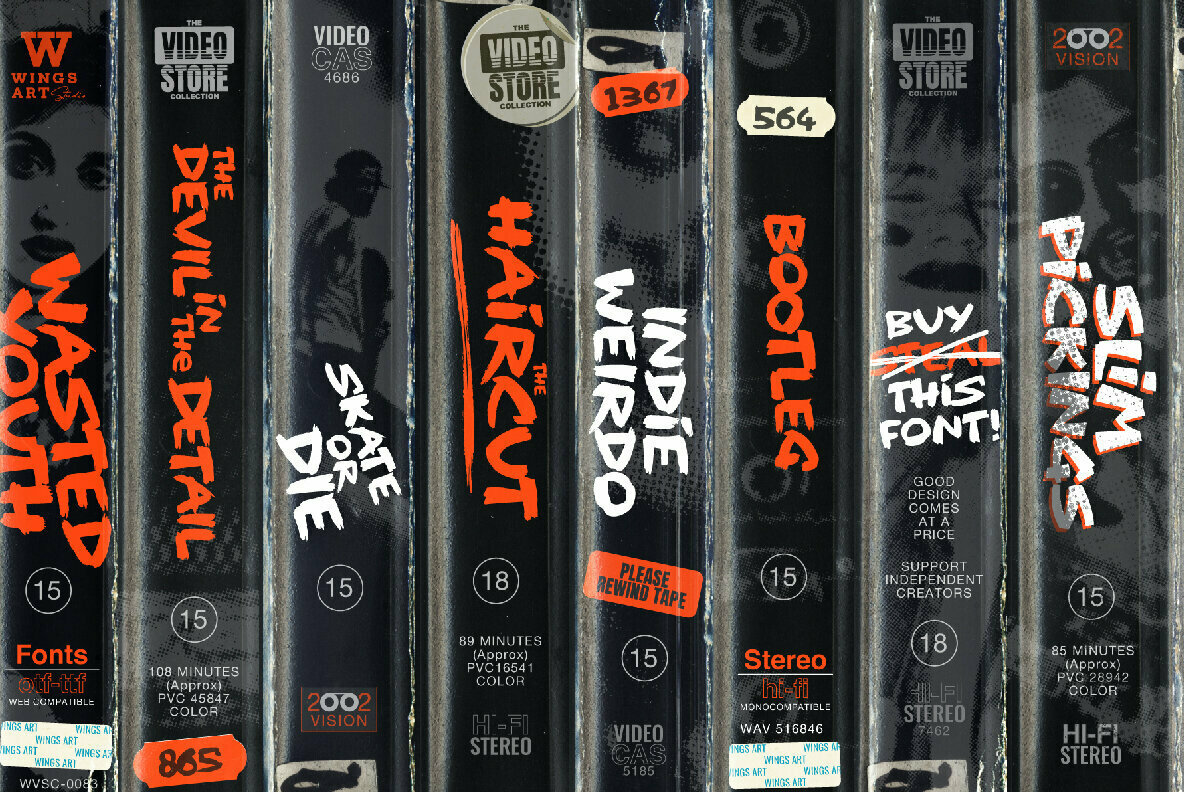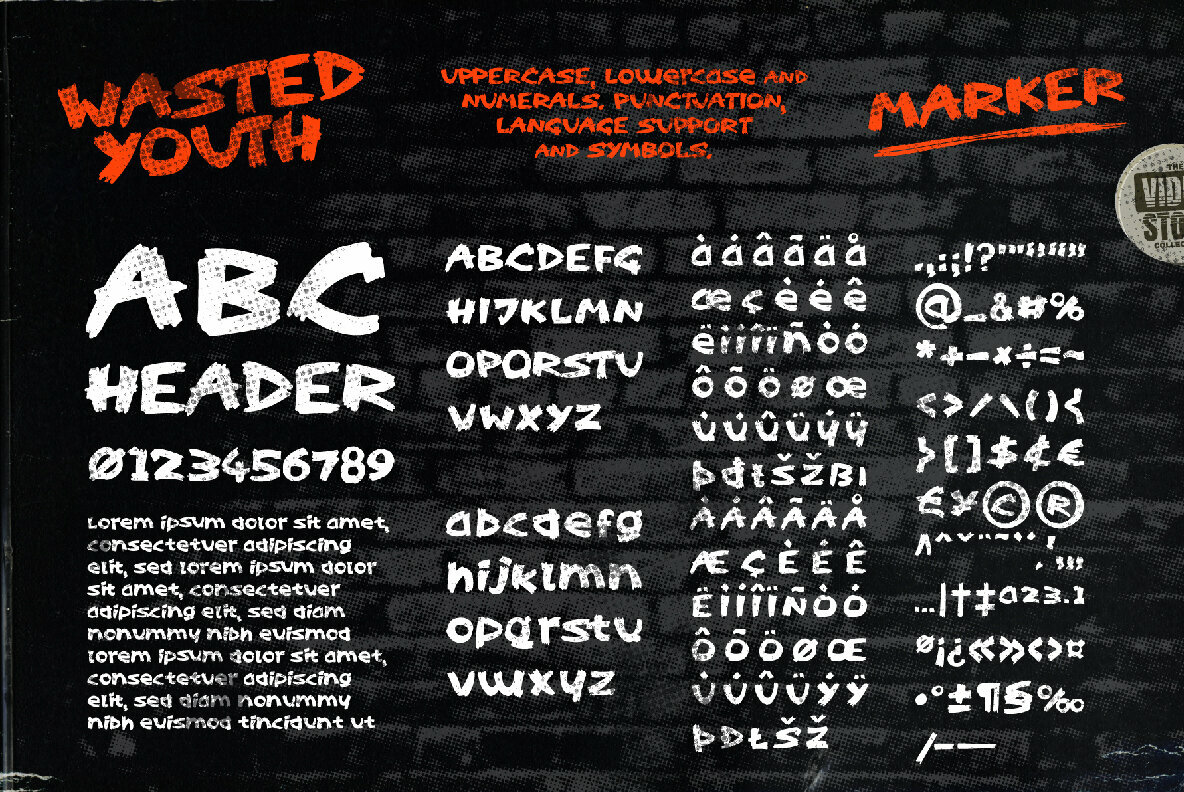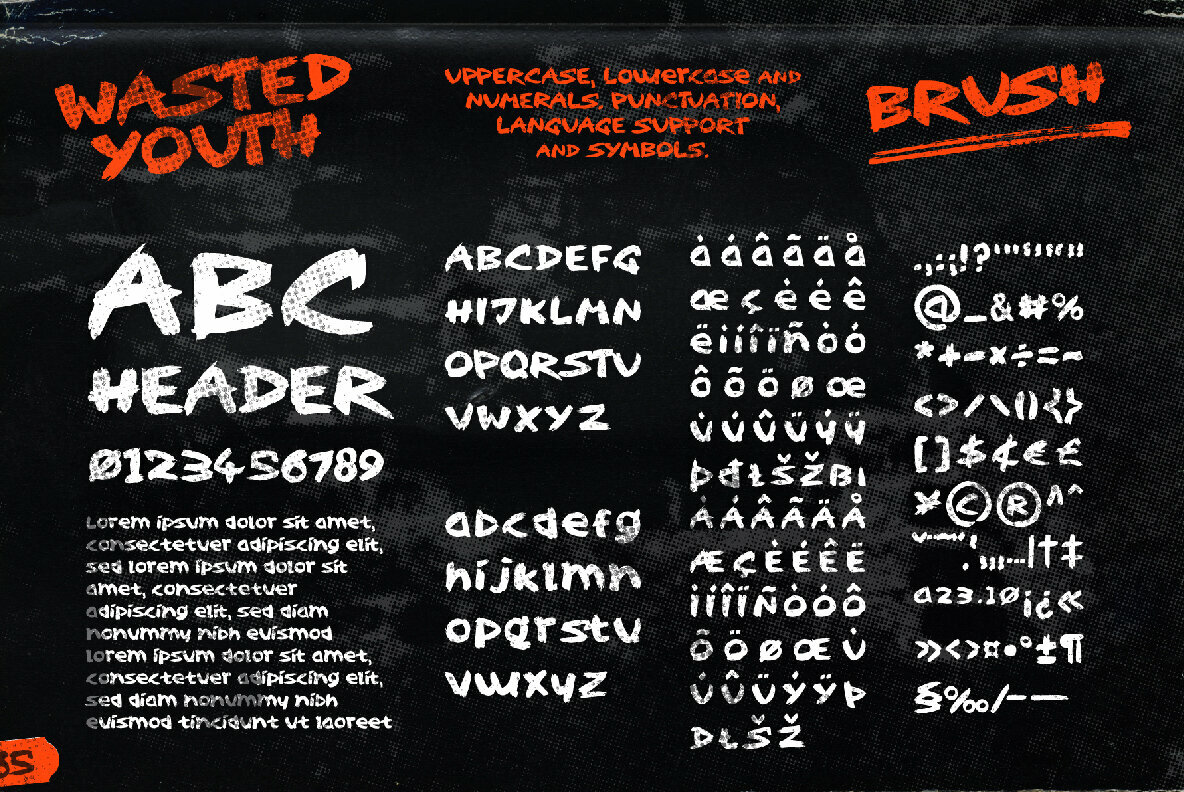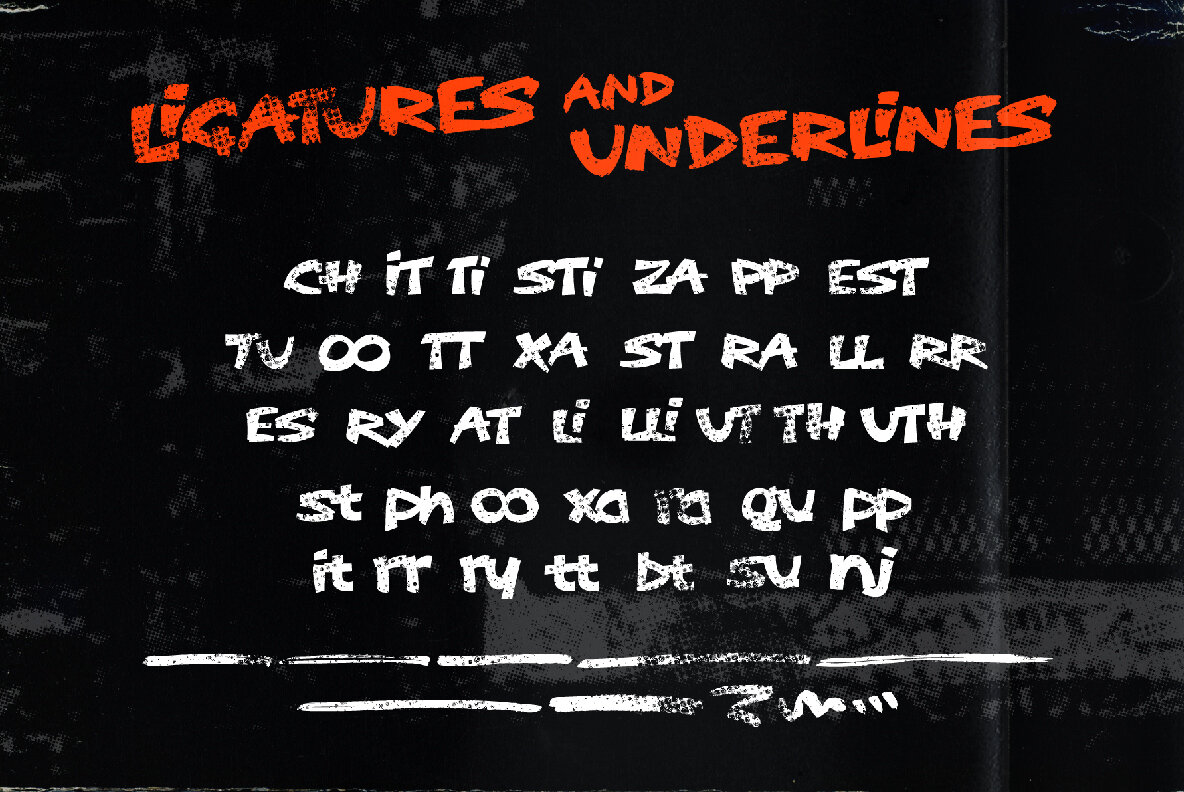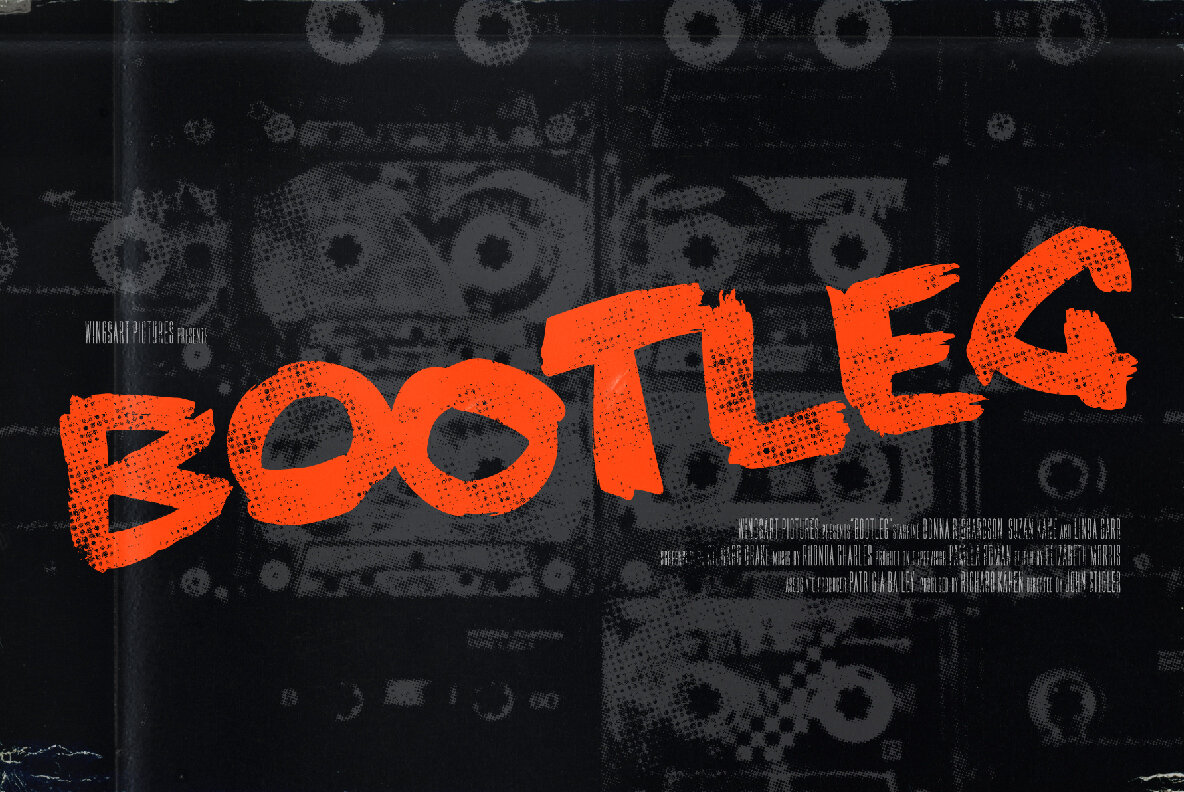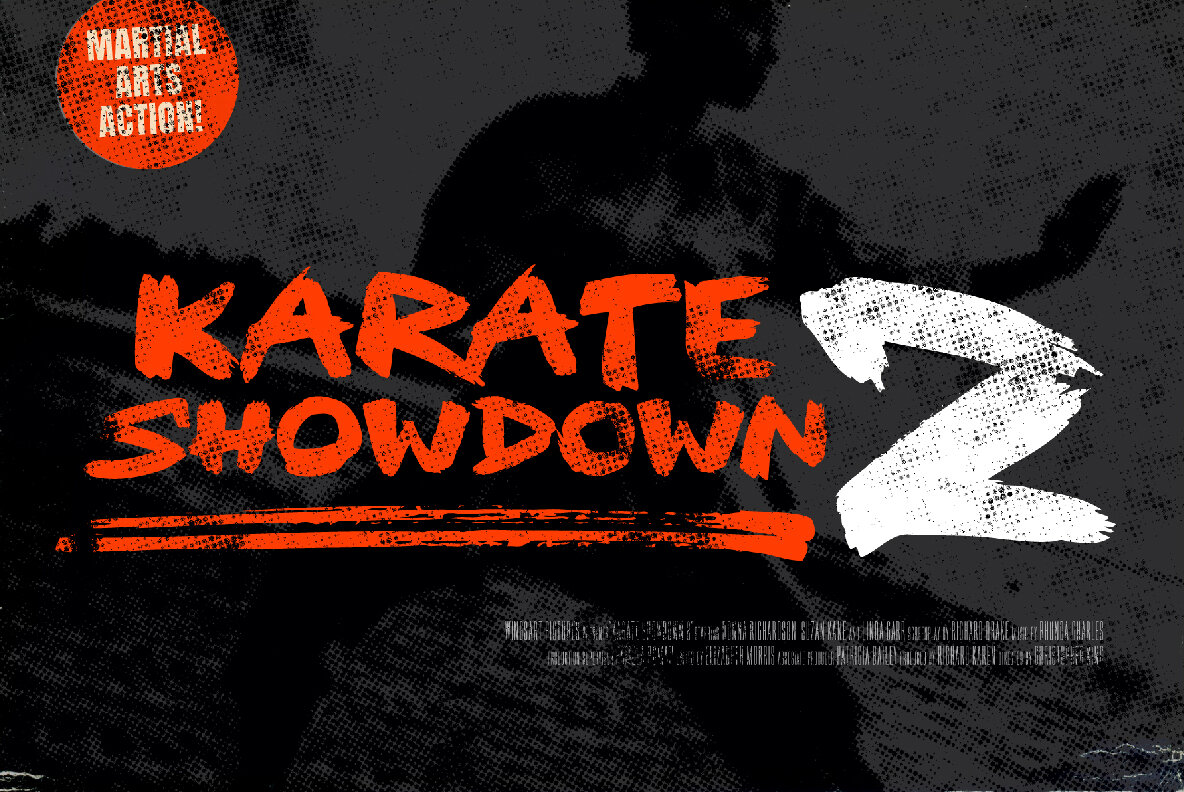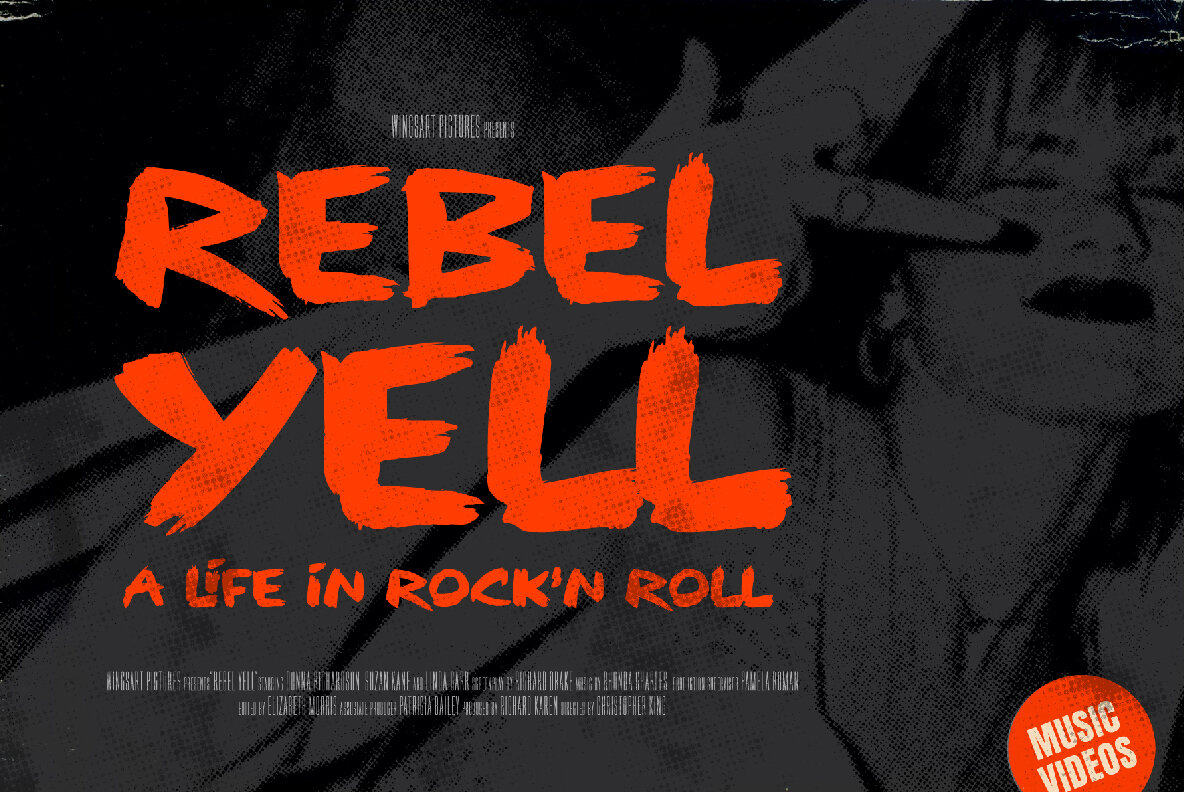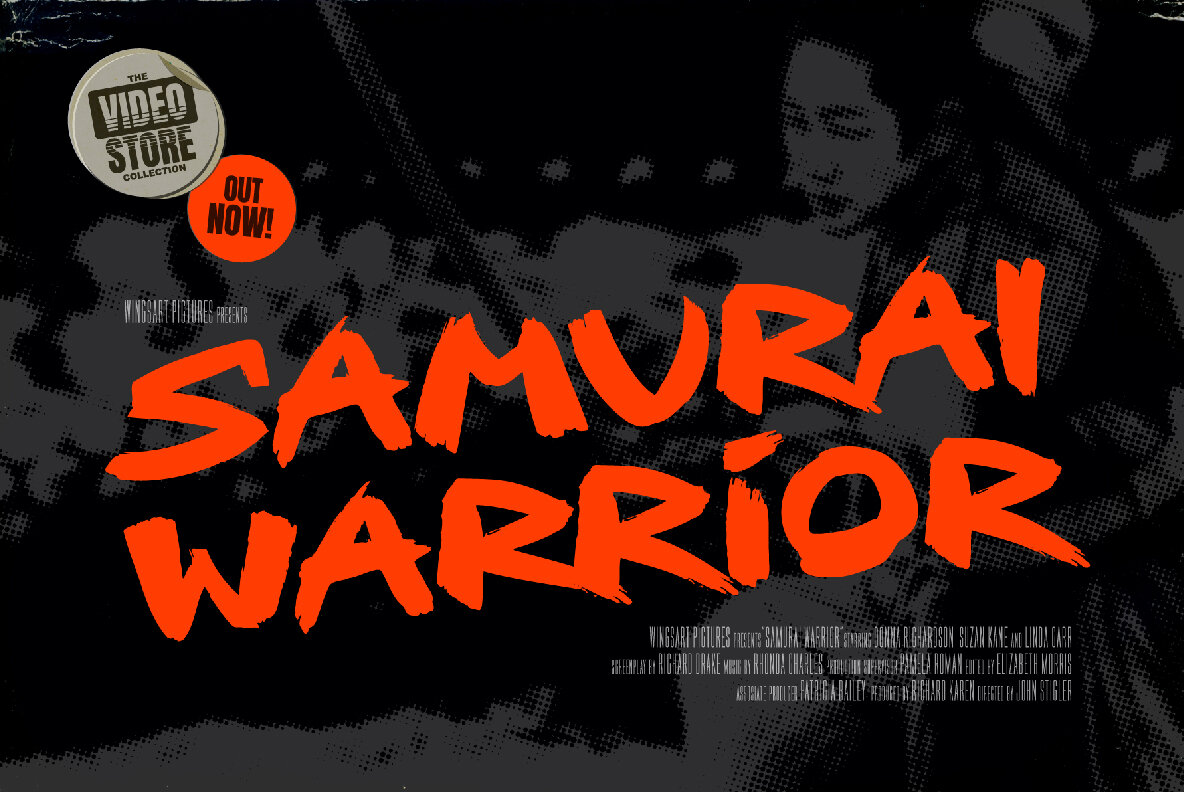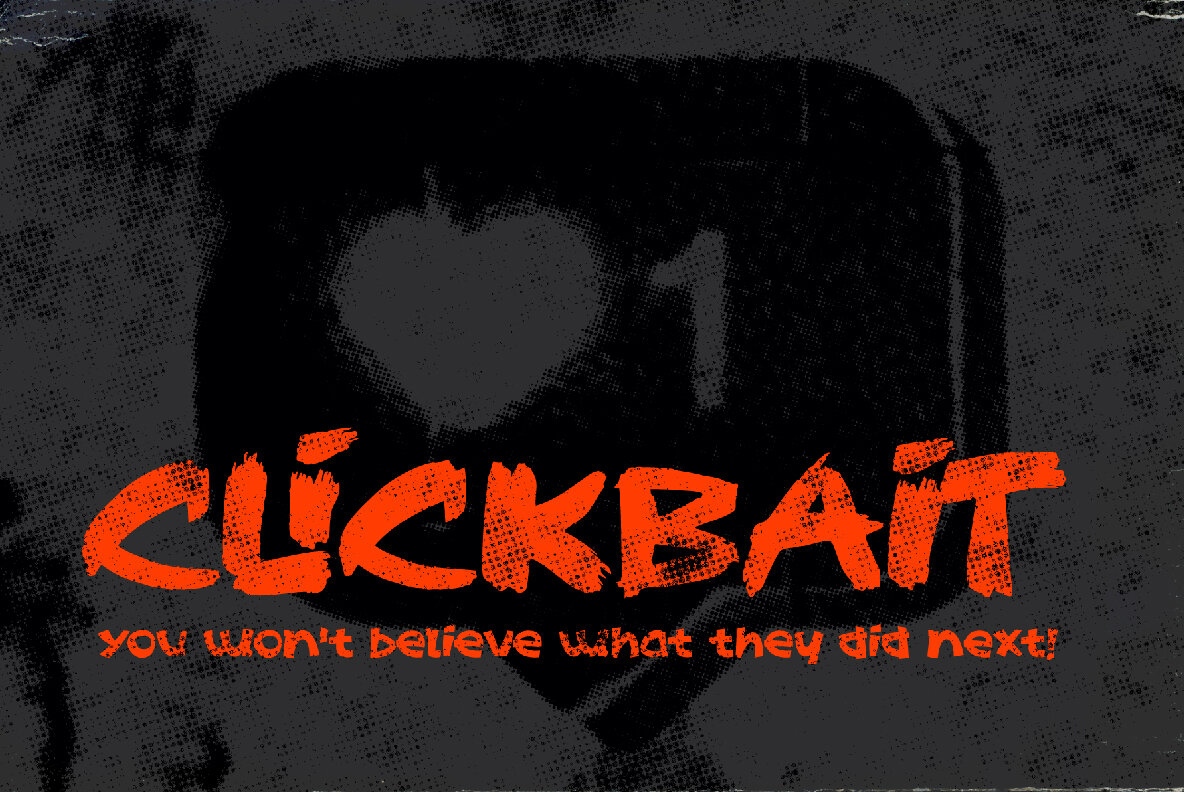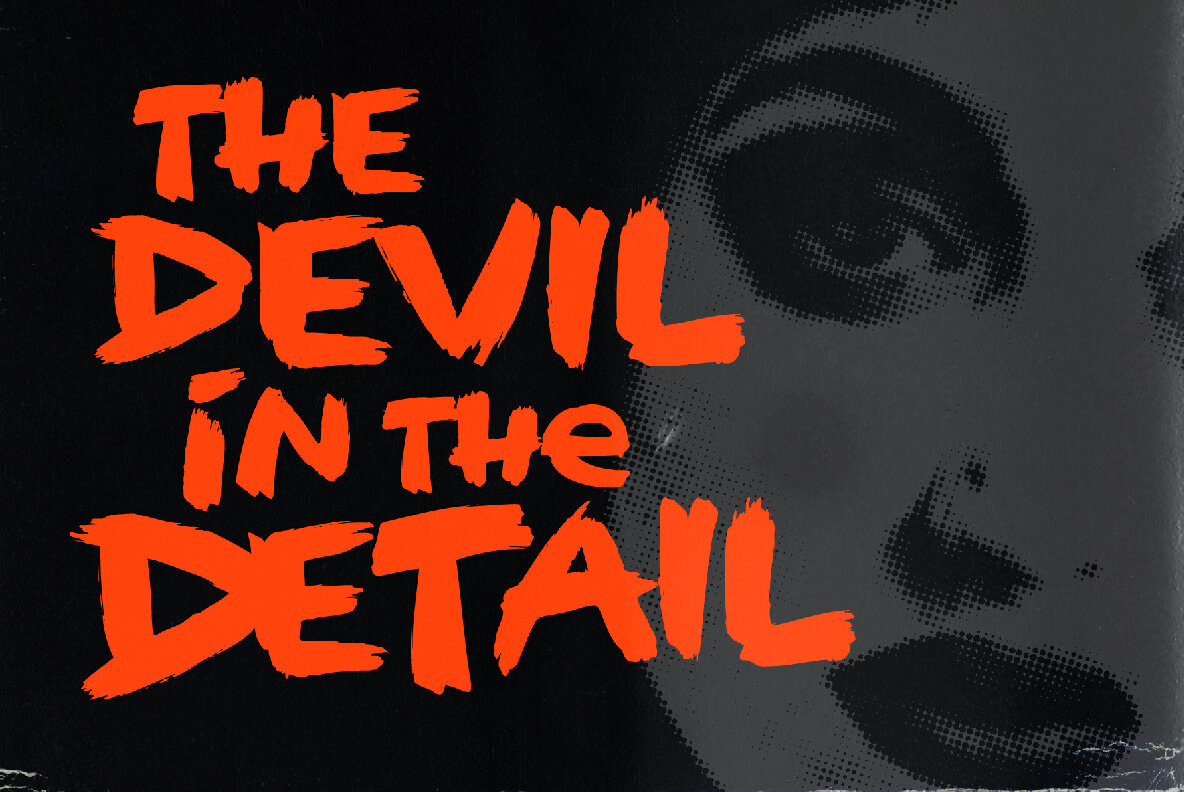
Wasted Youth Font
A versatile brush font with shades of grunge, punk and horror. Wasted Youth is a font in three styles including a clean-edged original, plus two additional versions drawn with inky brush and marker pen. It takes inspiration from 90s grunge bands, with a hand-made punk aesthetic that’s equally at home in music videos, album covers, horror movies and skate culture. It aims to combine the best of these popular looks into one versatile font.
Along with its unique uppercase and lowercase characters, Wasted Youth also comes with a host of custom ligatures, underlines and alternatives, along with numerals, punctuation and language support. It’s a truly flexible font that can be shaped into titles and headlines that look authentically hand-made. Try it on t-shirts, posters, stickers, movie titles, YouTube videos and more! Check out my visuals to see it in action.
- Regular
- Marker
- Underlines (assigned to keys 12345678910)